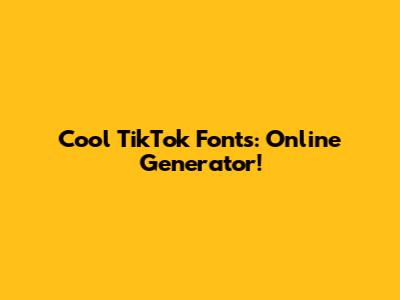
Cool TikTok Fonts: Online Generator!
Hey guys! Want to make your TikTok profile and videos stand out? Of course, you do! One of the easiest ways to grab attention is by using cool and unique fonts. Let's dive into the world of TikTok font generators and how you can use them to create eye-catching content.
Why Use a Font Generator for TikTok?
First off, why even bother with a font generator? TikTok is a visual platform, and everyone is vying for attention. Using the same old default fonts just won't cut it. Here’s why a font generator is your secret weapon:
• Stand Out: Custom fonts help your profile and videos pop, making people stop scrolling and pay attention.
• Brand Identity: Consistent use of specific fonts can help build your brand on TikTok. Think of it as your visual signature!
• Express Yourself: Fonts can convey different moods and tones. Whether you're going for playful, serious, or quirky, the right font can amplify your message.
• Easy to Use: Online font generators are super user-friendly. You don't need to be a design guru to create awesome text.
The advantages of employing a font generator are numerous and can significantly impact your TikTok presence. The ability to stand out in a sea of content creators is invaluable, and custom fonts offer an immediate visual distinction. By selecting fonts that resonate with your personal style or brand aesthetic, you create a cohesive and memorable identity that viewers will begin to recognize. This consistency fosters brand recognition and loyalty, making your content more impactful over time. Furthermore, fonts possess a unique ability to communicate emotions and set the tone for your videos. Whether you're aiming for humor, sophistication, or excitement, the right font can enhance the overall message and captivate your audience. The ease of use of online font generators is another compelling reason to incorporate them into your TikTok strategy. These tools eliminate the need for complex design software or specialized skills, allowing anyone to create professional-looking text effects quickly and efficiently. By taking advantage of these benefits, you can elevate your TikTok content and establish a strong, distinctive presence on the platform.
Ultimately, using a font generator is about making a statement and capturing the essence of your content. It's a simple yet effective way to add personality and flair to your TikTok profile, ensuring that your videos leave a lasting impression. The possibilities are endless, and with a plethora of font options available, you can experiment and discover the perfect font that embodies your unique style and message. So why settle for the ordinary when you can unleash your creativity and transform your TikTok content with the power of custom fonts?
How to Use a TikTok Font Generator
Okay, so you're sold on the idea. Now, how do you actually use one of these font generators? It's easier than you think!
1. Find a Font Generator: A quick Google search will reveal tons of free online font generators. Some popular ones include LingoJam, Cool Fonts, and Font Generator Online.
2. Type Your Text: In the generator, you'll see a text box where you can type whatever you want. This could be your username, a caption for your video, or any other text you want to customize.
3. Browse the Fonts: The generator will display your text in a variety of different fonts. Scroll through the options until you find one that catches your eye.
4. Copy and Paste: Once you've found the perfect font, simply copy the generated text.
5. Paste into TikTok: Head over to TikTok and paste the text into your profile bio, video caption, or wherever else you want to use it.
The process of using a TikTok font generator is remarkably straightforward and user-friendly, allowing you to transform your text with ease and efficiency. The initial step involves locating a suitable font generator, which can be easily accomplished through a quick search on Google or any other search engine. Numerous free online font generators are readily available, each offering a unique selection of fonts to cater to diverse tastes and preferences. Some popular options include LingoJam, Cool Fonts, and Font Generator Online, all of which provide a wide array of stylish and eye-catching fonts to choose from. Once you've selected a font generator, the next step is to input your desired text into the designated text box. This could be anything from your username and video captions to any other text that you wish to customize. The generator will then automatically display your text in a variety of different fonts, allowing you to preview and compare the various options available. Take your time to scroll through the font selections and carefully consider which one best complements your content and personal style. With so many options to choose from, you're sure to find the perfect font that resonates with your creative vision. Once you've identified the font that you want to use, simply copy the generated text from the generator.
With the font copied to your clipboard, navigate to TikTok and paste the text into your profile bio, video caption, or any other location where you wish to use it. The customized font will seamlessly integrate into your TikTok content, adding a touch of personality and flair to your profile. By following these simple steps, you can effortlessly enhance your TikTok presence and create visually appealing content that captures the attention of your audience. The ease of use and accessibility of TikTok font generators make them an indispensable tool for anyone looking to elevate their TikTok game and express their unique style.
Popular Font Styles for TikTok
Not sure where to start with font styles? Here are a few popular categories to get your creative juices flowing:
• Cursive Fonts: Elegant and stylish, cursive fonts add a touch of sophistication to your profile.
• Bold Fonts: Great for grabbing attention and making important text stand out.
• Sans-Serif Fonts: Clean and modern, sans-serif fonts are easy to read and work well in a variety of contexts.
• Decorative Fonts: These fonts are more elaborate and can add a unique, artistic flair to your content. Use them sparingly to avoid overwhelming your audience.
When it comes to font styles, TikTok offers a diverse range of options to suit any mood, aesthetic, or brand identity. Cursive fonts exude elegance and sophistication, adding a touch of refinement to your profile and videos. They're perfect for conveying a sense of grace, style, and attention to detail. Bold fonts, on the other hand, are ideal for capturing attention and emphasizing key messages. Their strong visual presence ensures that your text stands out and demands to be noticed, making them an excellent choice for highlighting important information or calls to action. Sans-serif fonts offer a clean and modern look, characterized by their simplicity and readability. They're incredibly versatile and work well in a variety of contexts, from profile bios to video captions. Their uncluttered design ensures that your text remains clear and legible, even on smaller screens. Decorative fonts are the wildcards of the font world, allowing you to express your creativity and add a unique, artistic flair to your content. These fonts often feature intricate designs, unusual shapes, and eye-catching embellishments, making them perfect for creating a distinct visual identity. However, it's important to use them sparingly to avoid overwhelming your audience. Too many decorative fonts can clutter your content and make it difficult to read, so use them judiciously to create a memorable and impactful impression.
By exploring these popular font styles, you can unlock the full potential of TikTok's visual language and craft content that truly reflects your unique personality and brand. Whether you're aiming for elegance, boldness, simplicity, or artistry, the right font can elevate your TikTok presence and leave a lasting impression on your audience.
Tips for Using Fonts on TikTok
Alright, you've got your font generator and you know what styles you like. Here are a few extra tips to make your TikTok fonts pop:
• Keep it Legible: No matter how cool a font looks, it's useless if people can't read it. Choose fonts that are clear and easy to understand, especially on smaller screens.
• Consider Contrast: Make sure your font color contrasts well with the background. Light text on a dark background (or vice versa) is usually a safe bet.
• Don't Overdo It: Using too many different fonts can make your profile look cluttered and confusing. Stick to one or two fonts that complement each other.
• Match Your Brand: Choose fonts that align with your brand's personality. If you're a fun and playful brand, go for something quirky. If you're more serious, opt for a classic font.
When it comes to using fonts on TikTok, legibility should always be your top priority. After all, even the most stylish and visually appealing font is useless if your audience can't decipher its message. To ensure that your text remains clear and easy to understand, particularly on smaller screens, opt for fonts that are designed with readability in mind. Avoid fonts with overly intricate designs, thin strokes, or excessive ornamentation, as these can become difficult to read when scaled down. Instead, choose fonts with clean lines, ample spacing, and a consistent stroke weight to maximize legibility. Contrast is another crucial factor to consider when selecting fonts for TikTok. The contrast between your font color and the background can significantly impact readability, so it's essential to choose colors that provide sufficient visual separation. As a general rule of thumb, light text on a dark background (or vice versa) tends to offer the best contrast and readability. This combination ensures that your text stands out and remains easily visible, even in low-light conditions or against busy backgrounds.
Consistency is key to creating a cohesive and visually appealing TikTok presence. While it can be tempting to experiment with a variety of different fonts, using too many can lead to a cluttered and confusing look. Instead, stick to one or two fonts that complement each other and align with your brand's personality. This will help to create a unified and professional image that resonates with your audience. Finally, consider your brand's personality when selecting fonts for TikTok. Your fonts should reflect the overall tone and message of your brand, whether it's fun and playful or serious and professional. If you're a fun and playful brand, you might opt for quirky and unconventional fonts that add a touch of whimsy to your content. On the other hand, if you're a more serious brand, you might prefer classic and understated fonts that convey a sense of authority and trustworthiness. By carefully considering these factors, you can choose fonts that enhance your TikTok presence and effectively communicate your brand's identity to your audience.
Font TikTok Keren Generator Online: The Conclusion
So there you have it! Using a font generator is a fantastic way to level up your TikTok game and make your content stand out. Experiment with different styles, find what works for you, and have fun creating an awesome TikTok presence. Go get those views, guys!
By embracing the power of font generators and implementing the tips and strategies outlined in this guide, you can transform your TikTok content from ordinary to extraordinary. Experiment with different font styles, discover the perfect fonts that align with your brand's personality, and unleash your creativity to create a visually stunning and engaging TikTok presence. With a little bit of effort and imagination, you can captivate your audience, build a loyal following, and elevate your TikTok game to new heights. So go ahead, dive into the world of TikTok fonts, and let your creativity soar! The possibilities are endless, and the rewards are well worth the investment. Get ready to make your mark on TikTok and leave a lasting impression on your viewers. Your journey to TikTok stardom begins now!